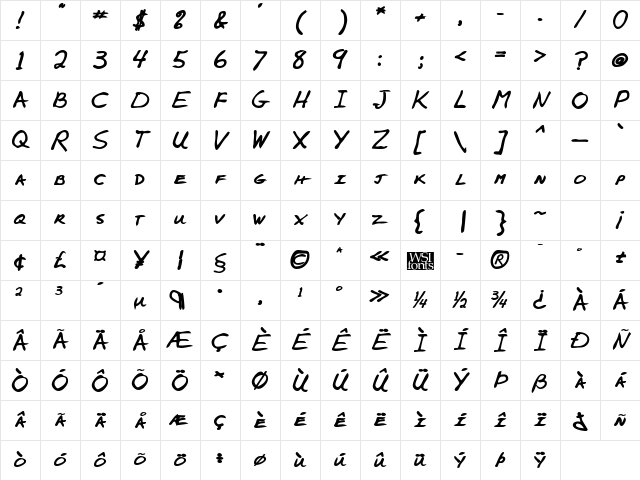
AlexsHand flows with the natural rhythm of handwritten lettering, making it ideal for designs that call for warmth and personal expression. Its bold stroke weight gives it real presence on the page.
Font Pairing: Combine AlexsHand with a simple geometric sans for maximum contrast - the tension between flowing curves and clean structure is a classic typographic pairing.
Pro Tip: Use AlexsHand for short runs of text - names, titles, or taglines. Extended body copy in script faces tires the eye quickly.